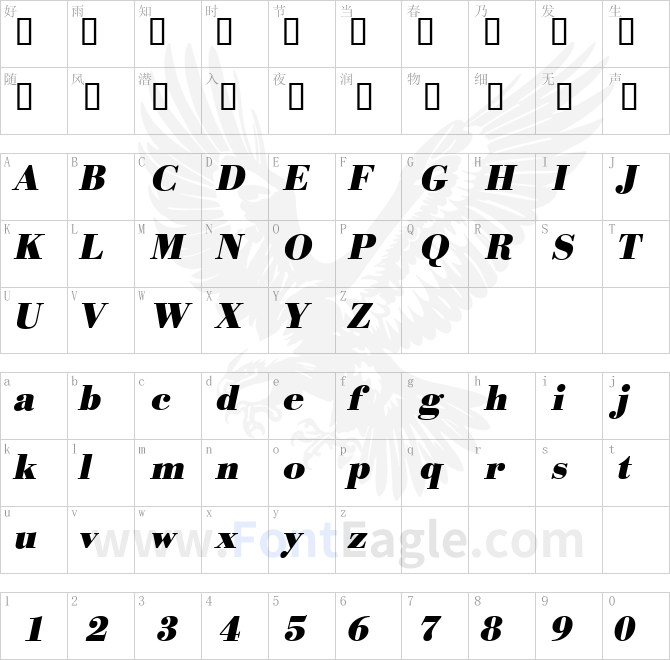
BodoniStd-BoldItalic is a great font, widely used in graphic design, single-page menu design, poster design and other fields, and is deeply loved by designers.BodoniStd-BoldItalic download.